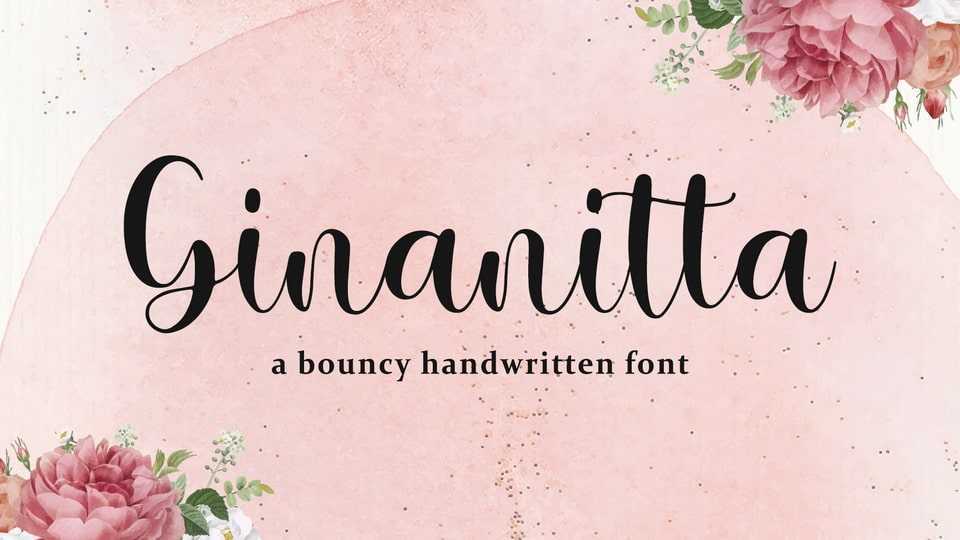
Download Ginanitta font, a modern wedding calligraphy typeface that gives a sophisticated handwriting look to elegant wedding stationery, logos and branding, websites, calligraphic quotes and more!